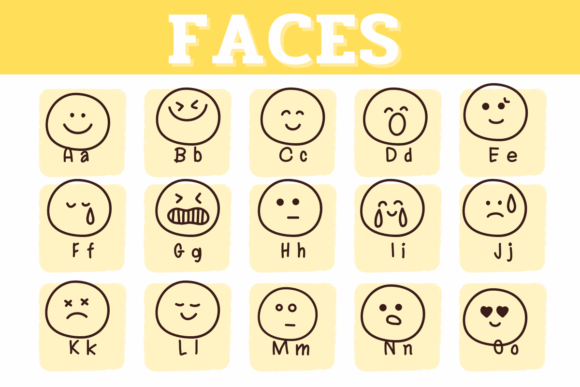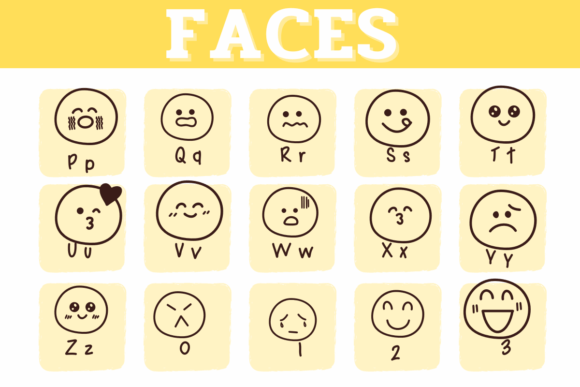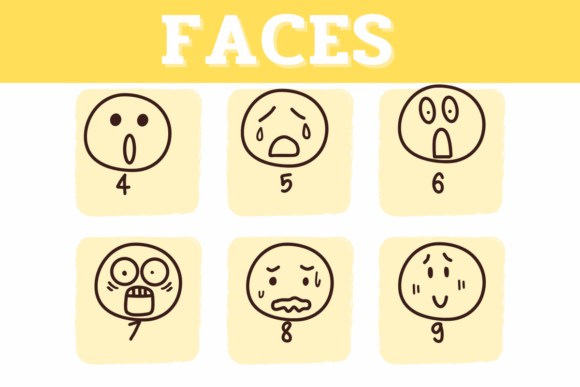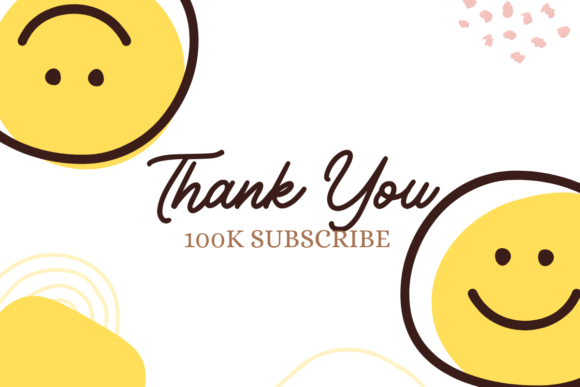
Introducing Faces Font: Unleash Your Creativity with this Unique Dingbats Font
Are you a designer, crafter, or DIY enthusiast looking for a font that can add a touch of personality to your creative projects? Look no further than Faces Font, a dingbats font with a creative theme and a sketch style that’s sure to inspire. In this article, we’ll explore the features and benefits of Faces Font, and show you how it can enhance your wedding invitations, DIY projects, crafts, decorations, logos, and many other creative ideas.
What is Faces Font?
Faces Font is a unique dingbats font that features a range of creative and playful designs. With its sketch style, this font adds a touch of whimsy and personality to any project. Whether you’re looking to create a custom wedding invitation, design a logo for your business, or add some flair to your DIY crafts, Faces Font is the perfect choice.
Key Features of Faces Font
- Creative theme: Faces Font features a range of creative and playful designs that are perfect for adding a touch of personality to your projects.
- Sketch style: The font’s sketch style gives it a unique and hand-drawn feel that’s perfect for DIY projects, crafts, and other creative endeavors.
- Dingbats font: As a dingbats font, Faces Font features a range of symbols and icons that can be used to add visual interest to your projects.
How to Use Faces Font in Your Creative Projects
Faces Font is a versatile font that can be used in a wide range of creative projects. Here are just a few ideas to get you started:
Wedding Invitations
Make your wedding invitations truly special with Faces Font. Use the font to add a touch of personality to your invitation design, or use it to create custom illustrations and graphics.
DIY Projects
Faces Font is perfect for DIY projects, such as crafting, scrapbooking, and home decor. Use the font to add a personal touch to your projects, or use it to create custom labels and signs.
Crafts
Faces Font is a great choice for crafters, with its range of creative and playful designs. Use the font to add a touch of personality to your crafts, or use it to create custom illustrations and graphics.
Decorations
Use Faces Font to create custom decorations, such as banners, signs, and wall art. The font’s sketch style and creative theme make it perfect for adding a touch of personality to your decor.
Logos and Branding
Faces Font can also be used to create custom logos and branding materials. The font’s unique and playful designs make it perfect for businesses and individuals looking to stand out from the crowd.
Tips and Tricks for Using Faces Font
Here are a few tips and tricks for getting the most out of Faces Font:
- Experiment with different colors: Faces Font looks great in a range of colors, so don’t be afraid to experiment and find the perfect hue for your project.
- Mix and match: Combine Faces Font with other fonts and graphics to create a unique and eye-catching design.
- Use it sparingly: Faces Font is a bold and playful font, so use it sparingly to add a touch of personality to your project.